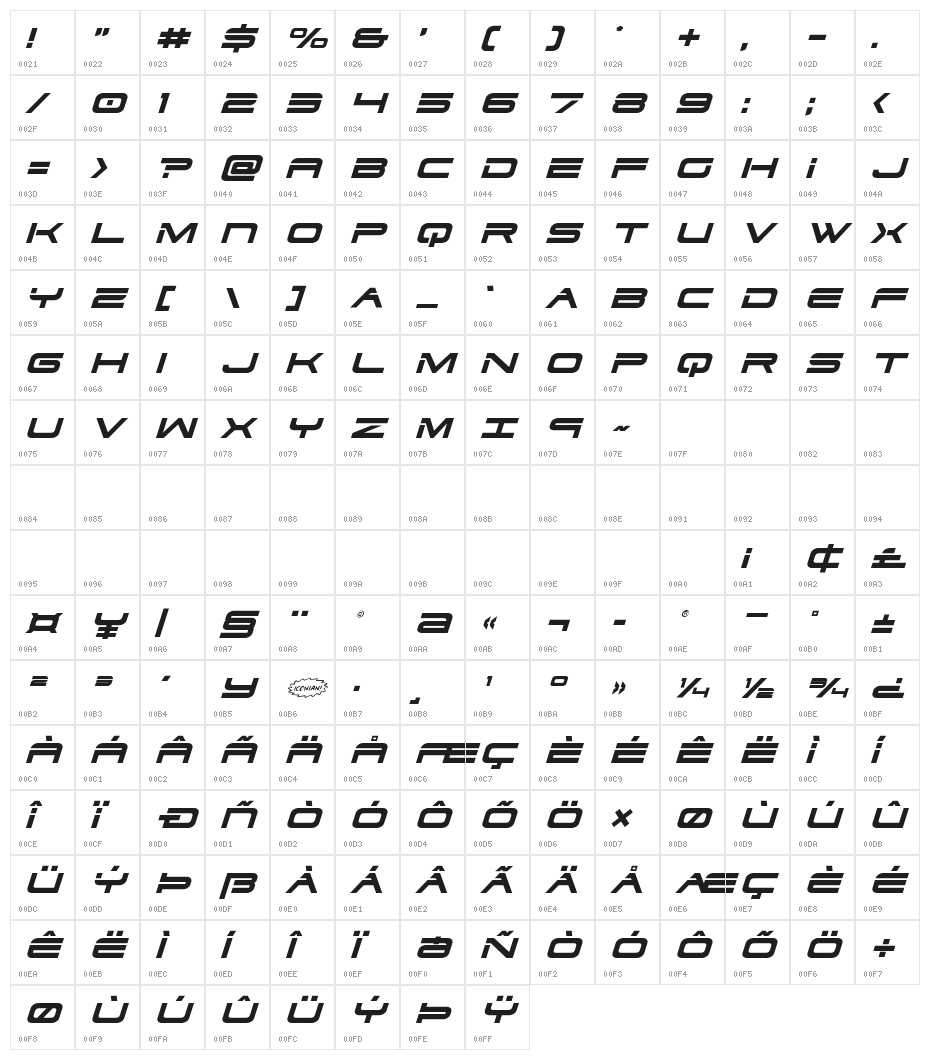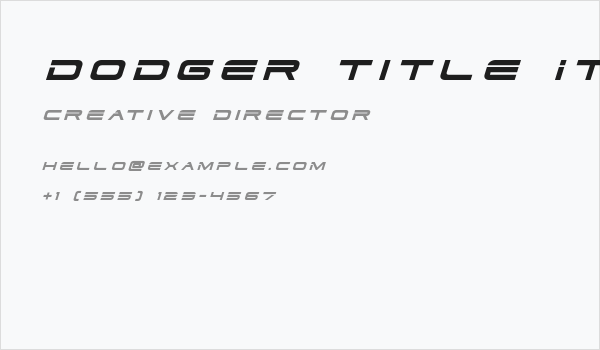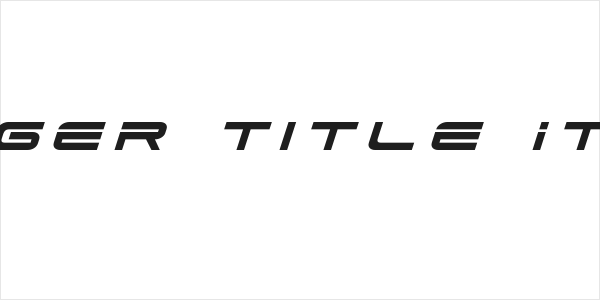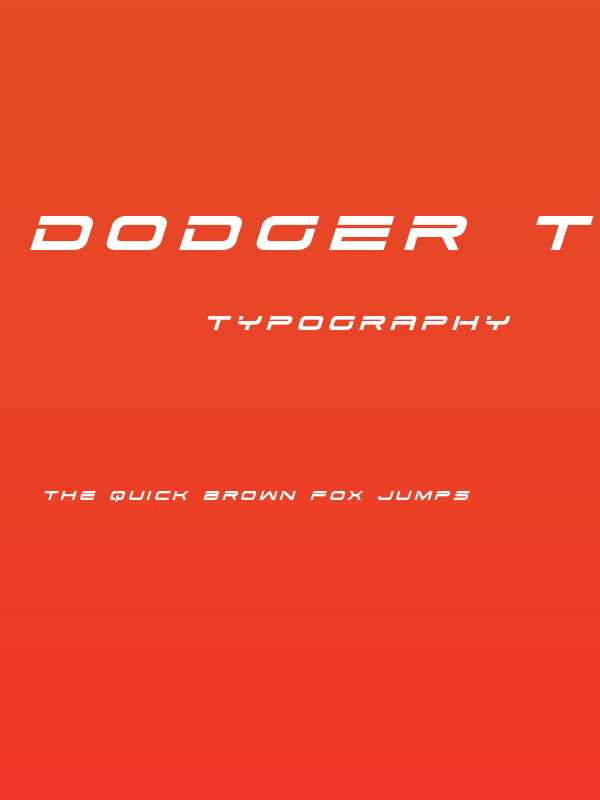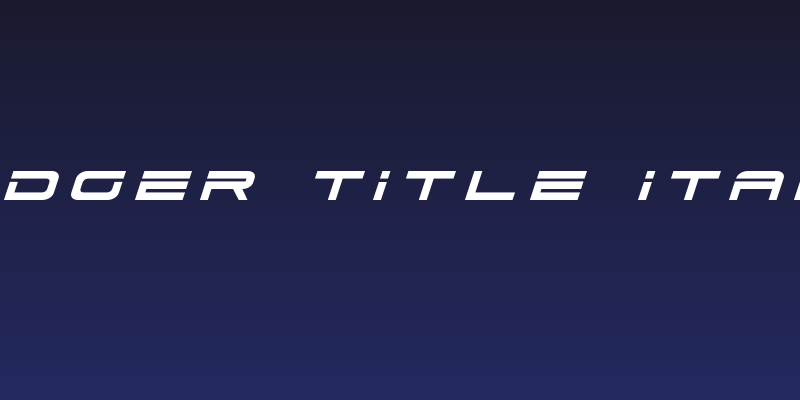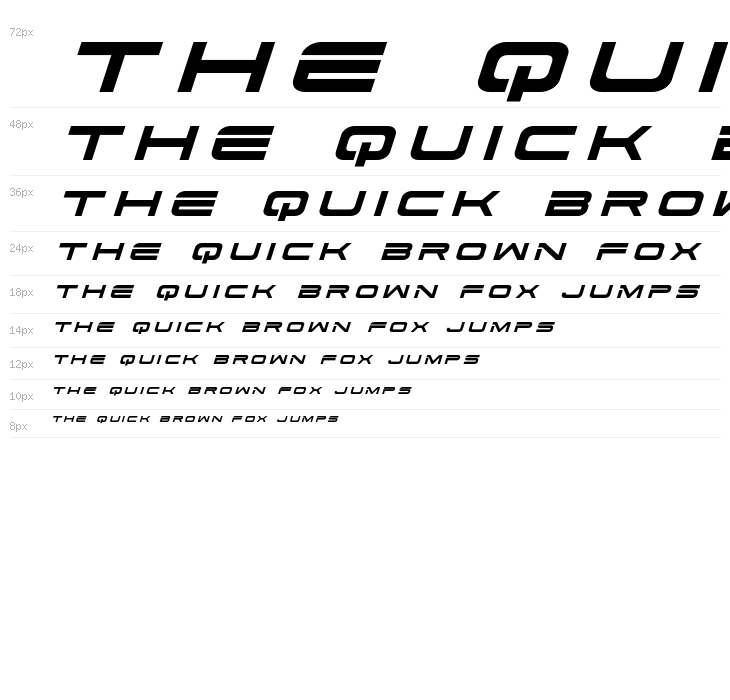
Dodger Title Italic Font
Dodger Title Italic Description
This font features a sleek and modern italic style with a futuristic touch. The characters are slightly slanted, giving a sense of motion and speed. The design is clean with sharp edges and a geometric structure, making it ideal for contemporary projects. The uppercase and lowercase letters maintain a consistent style, while the numerals and special characters are designed to complement the overall aesthetic. The font's unique look makes it suitable for technology-related themes, sports branding, and dynamic visual identities.
| Proposed Projects | Ideal for technology branding, sports logos, dynamic posters, and modern web design. |